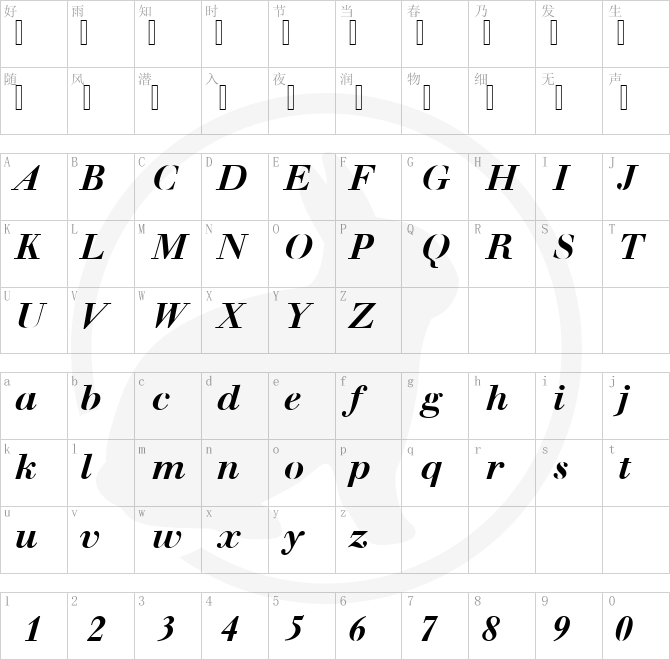
WalbaumBucTMed-Italic.ttf is a very beautiful artistic font, WalbaumBucTMed-Italic.ttf is widely used in the design and printing of various books and pictures,WalbaumBucTMed-Italic.ttf has a strong visual impact,WalbaumBucTMed-Italic.ttf is a commonly used font in newspapers, magazines and books, and is used in posters, e-commerce Poster design, store design, logo design, font design and other fields.WalbaumBucTMed-Italic.